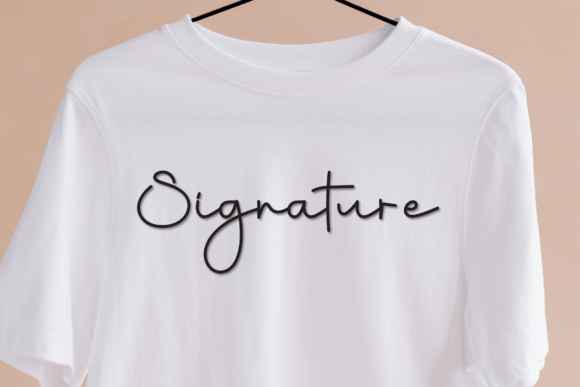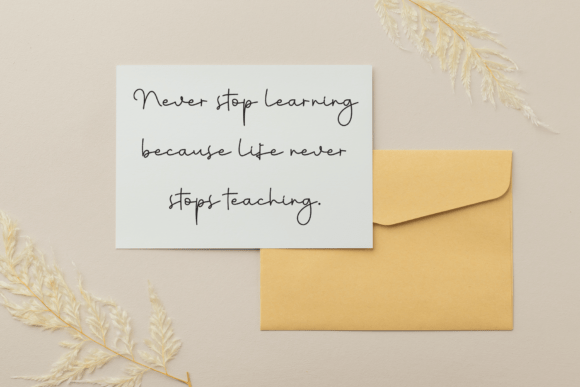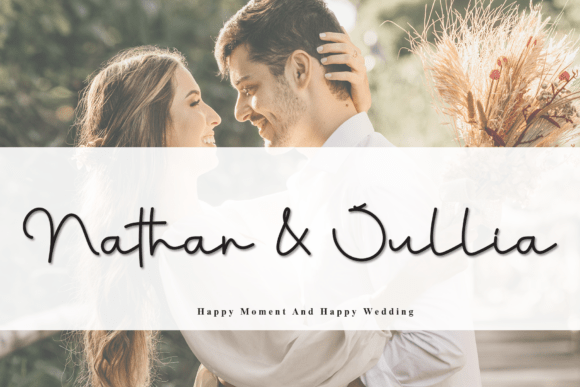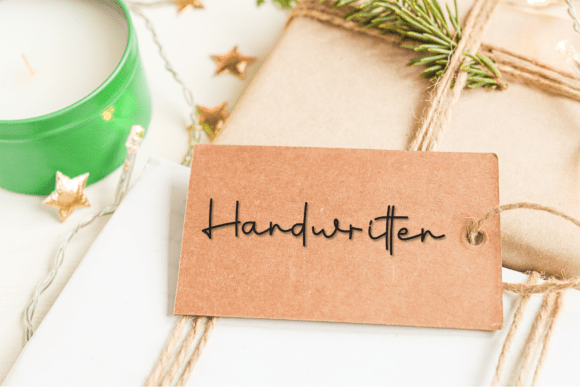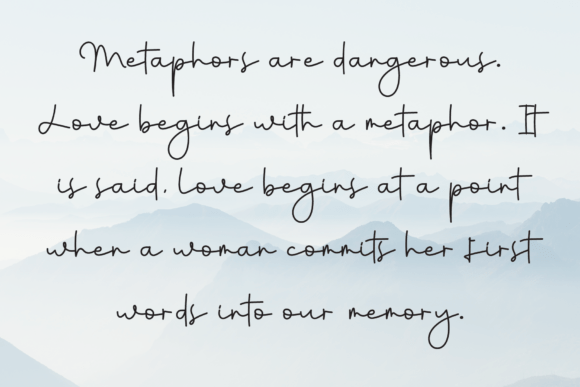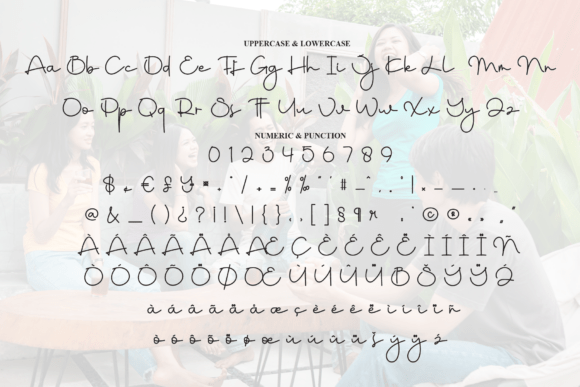
Introducing Hangouth Font: Elevate Your Designs with Artistic Flair and Contemporary Elegance
In the world of typography, few fonts manage to capture the perfect blend of artistic expression and modern sophistication. Hangouth Font is one such exceptional typeface that brings a stylish script font to the forefront, exuding an effortless elegance and creative flair. Designed to inspire designers, crafters, and artists alike, Hangouth is not just a font; it’s a statement piece that can transform any design into a masterpiece.
The Artistic Essence of Hangouth Font
Hangouth Font is characterized by its fluid brush strokes, dynamic curves, and highly expressive letterforms. These features collectively capture the essence of hand-painted calligraphy but with a distinctly modern twist. The fluidity of the brush strokes gives the font a natural, almost organic feel, as if each letter and word was handcrafted with precision and care. This quality makes Hangouth incredibly versatile, suitable for a wide range of design applications.
Applications of Hangouth Font
The versatility of Hangouth Font is one of its most compelling attributes. Its unique blend of artistic flair and contemporary elegance makes it an ideal choice for various design projects. Here are some of the key areas where Hangouth truly shines:
- Logos: For businesses looking to establish a brand identity that speaks of creativity and sophistication, Hangouth can be a game-changer. Its distinctive style ensures that your logo stands out, conveying a sense of elegance and professionalism.
- Invitations: Whether it’s a wedding invitation, a birthday party, or any other special event, Hangouth adds a touch of class and personalization. Its artistic feel makes any invitation feel more intimate and unique.
- Packaging: In the competitive world of product packaging, standing out on the shelves is crucial. Hangouth can help elevate your product’s packaging design, making it more appealing to potential customers.
- Social Media Graphics: For bloggers, influencers, and businesses looking to enhance their social media presence, Hangouth can add a creative and sophisticated touch to any graphic, making it more engaging and shareable.
Why Choose Hangouth Font?
Choosing Hangouth Font for your design projects comes with numerous benefits. Here are a few reasons why designers and crafters are gravitating towards this stylish script font:
- Visual Impact: Hangouth delivers a significant visual impact, thanks to its dynamic and expressive letterforms. It can instantly elevate the aesthetic value of any design, making it more compelling and engaging.
- Versatility: Its natural flow and vibrant character allow it to be used across various design projects, from digital graphics to print materials.
- Contemporary Elegance: In a world where design trends are constantly evolving, Hangouth offers a timeless elegance that won’t go out of style anytime soon. Its modern twist on traditional calligraphy ensures it remains relevant and appealing.
Tips for Using Hangouth Font Effectively
To make the most out of Hangouth Font, consider the following tips:
- Pair it Wisely: Combine Hangouth with complementary fonts to create visual harmony. A sans-serif font can provide a nice contrast to Hangouth’s script style.
- Experiment with Colors: Don’t be afraid to play with different colors. Hangouth’s vibrant character looks great in bold, bright colors but can also convey elegance in more subdued tones.
- Adjust Letter Spacing: For a more natural, hand-painted look, consider adjusting the letter spacing. This can enhance the organic feel of the font.
Hangouth Font is more than just a typeface; it’s a design statement that can transform your creative projects. With its stylish script, fluid brush strokes, and contemporary elegance, it offers a unique blend of artistic flair and sophistication. Whether you’re a designer looking to elevate your branding, a crafter aiming to add a personal touch to your projects, or a social media enthusiast seeking to make your graphics stand out, Hangouth Font is an excellent choice. Its versatility, visual impact, and timeless elegance make it a valuable addition to any designer’s toolkit.
Embrace the creative possibilities with Hangouth Font and discover how it can add a sophisticated touch to your designs, making them more engaging, memorable, and impactful.